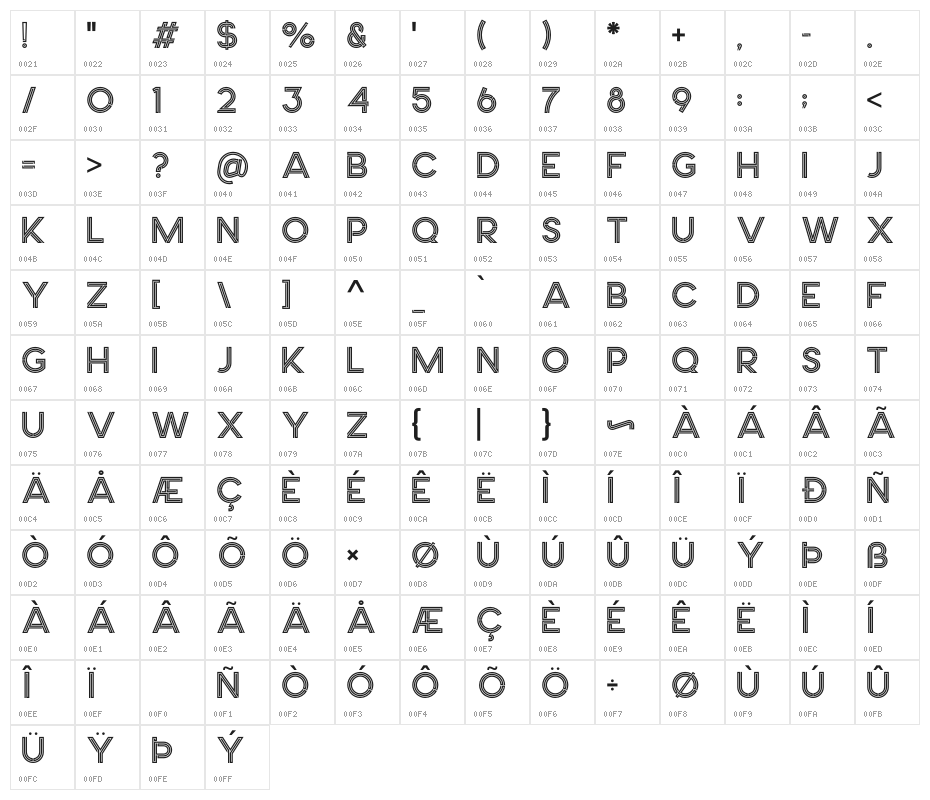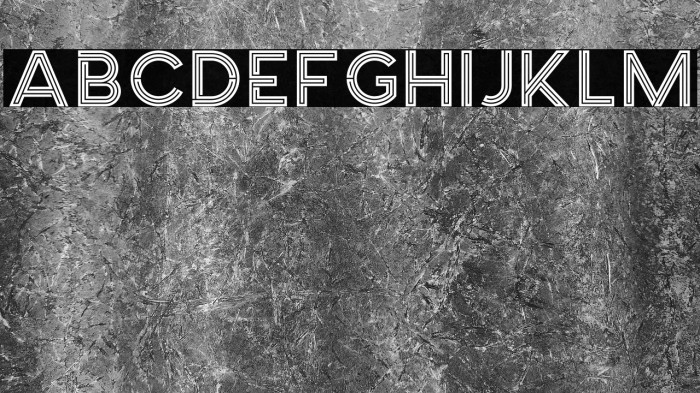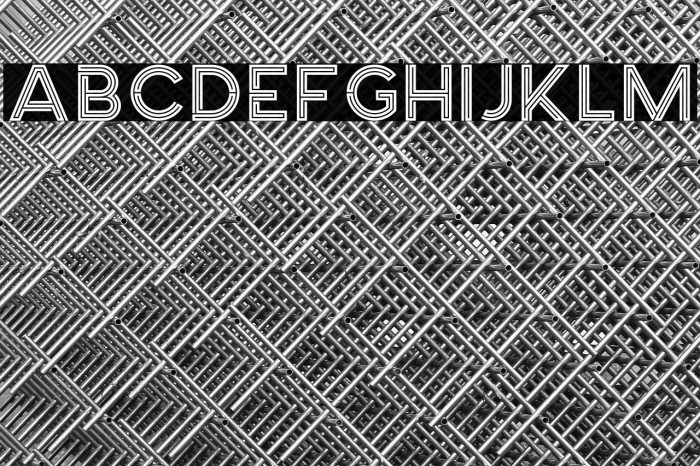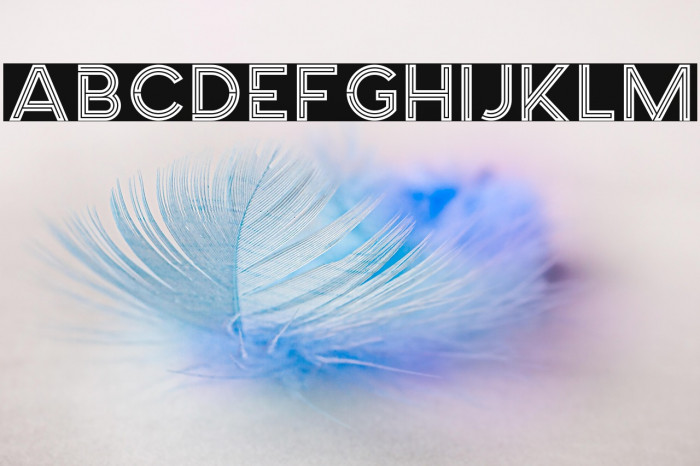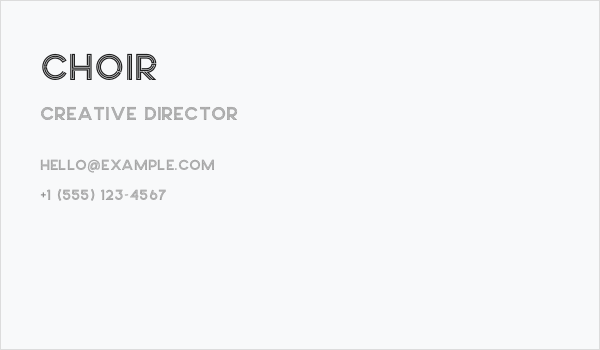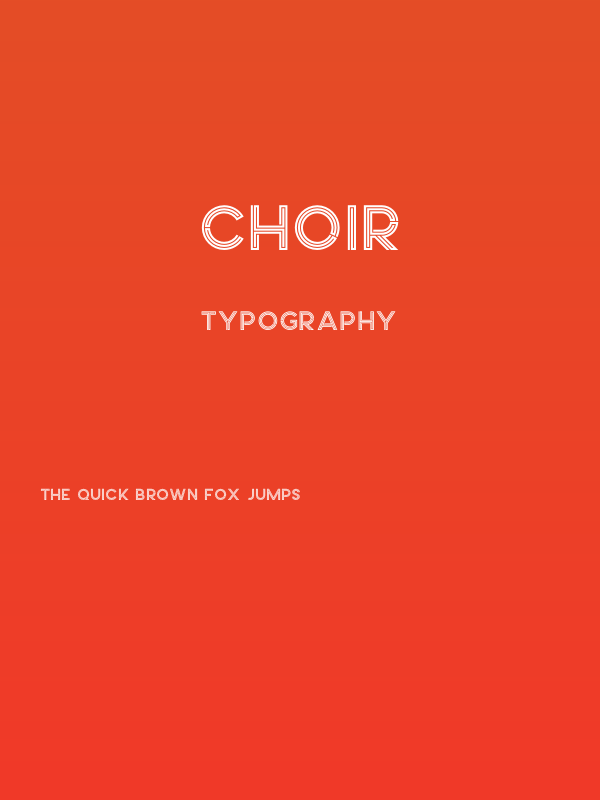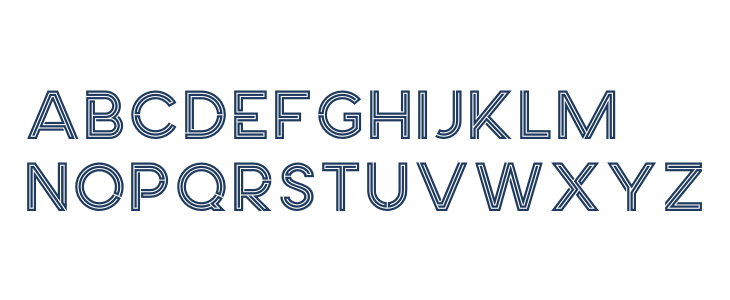
Choir Font
Choir Description
This font features a unique, layered design with multiple outlines creating a three-dimensional effect. The uppercase and lowercase letters maintain a consistent geometric structure, emphasizing clean lines and symmetry. The numerals and special characters follow the same stylistic approach, ensuring uniformity across all glyphs. The font's bold appearance is accentuated by its high contrast, making it stand out in any design. Its decorative nature makes it ideal for projects that require a modern and eye-catching aesthetic.
| Proposed Projects | Ideal for branding, posters, headlines, and any design requiring a striking, modern look. |